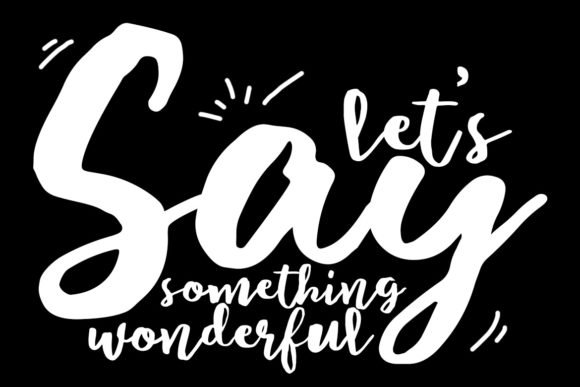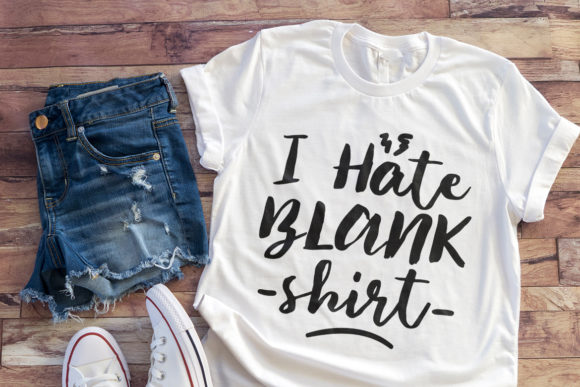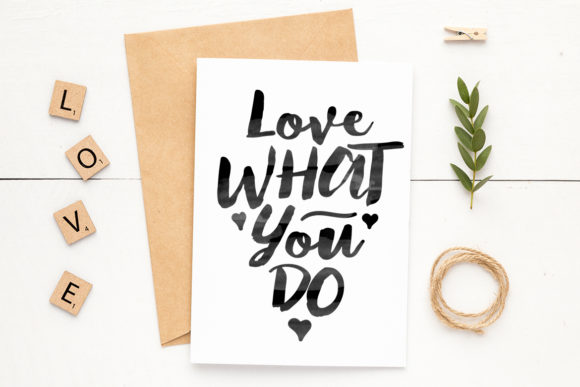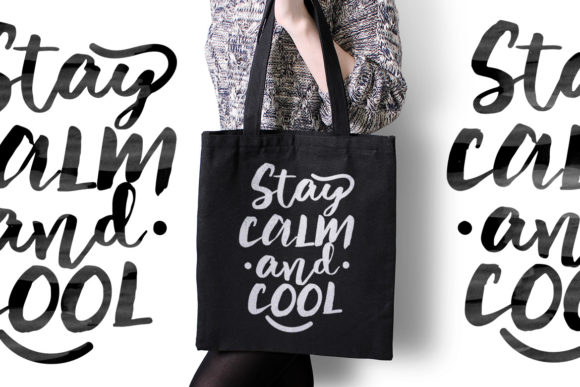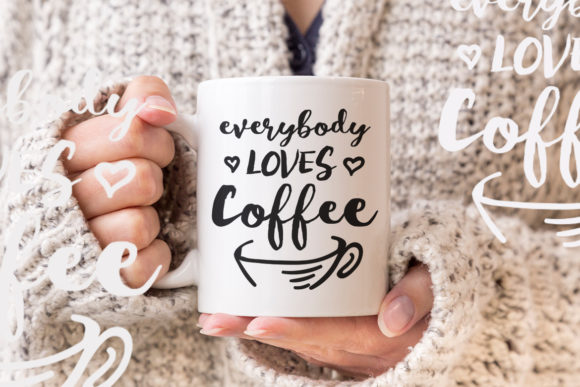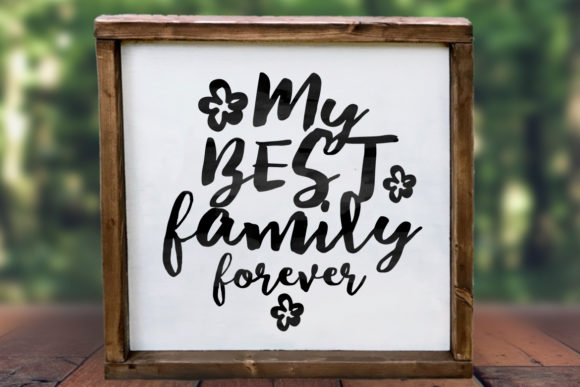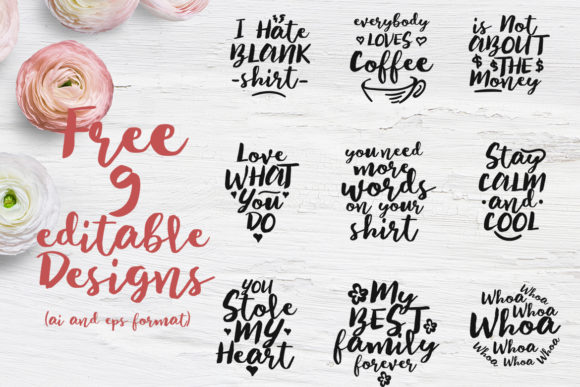
Sayur Koool Font
About Sayur Koool Font
The Sayur Koool is a playful bouncing script. It has a natural style and comes with editable designs as a bonus!
It’s great for logos, posters, web headers, invitations, and much more!